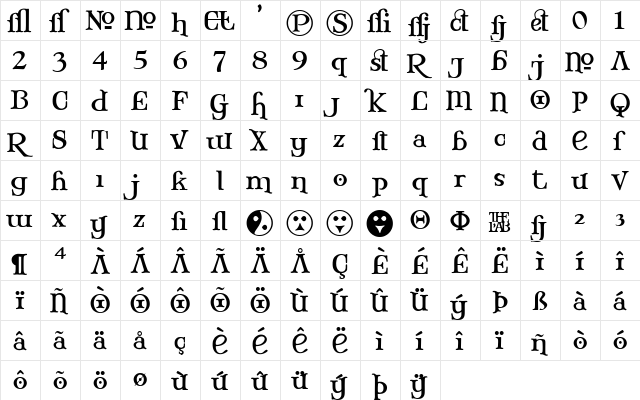
Mary Jane Alternate Regular
Design Context for Mary Jane Alternate Typeface
Mary Jane Alternate takes a measured approach to typography — its balanced proportions and neutral character make it a reliable workhorse for both digital and print work.
Pro Tip: Use Mary Jane Alternate in both headline and body roles to test its range before committing to a single application.